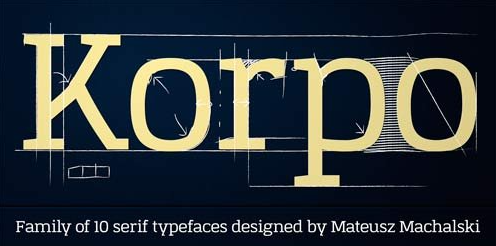
Korpo Serif Font Family
Korpo Serif, designed by Mateusz Machalski, is a serif type family with a friendly feel. Serif style brings to mind egyptian or slab styles. This type contains 10 variants with two different “a” ang “g” glyph per style. Korpo contain Small CAPS in two styles. Broken details were made intentionally for better readability. The low contrast and high x height is perfect for longer text and Headlines.